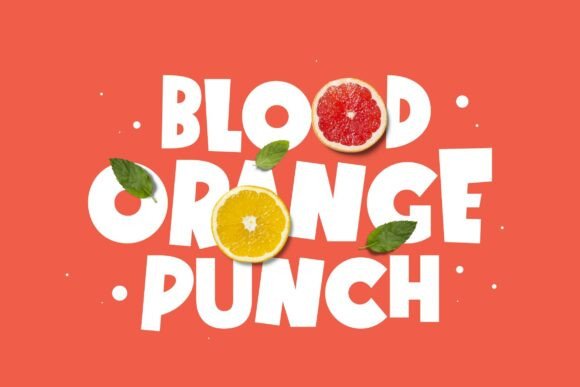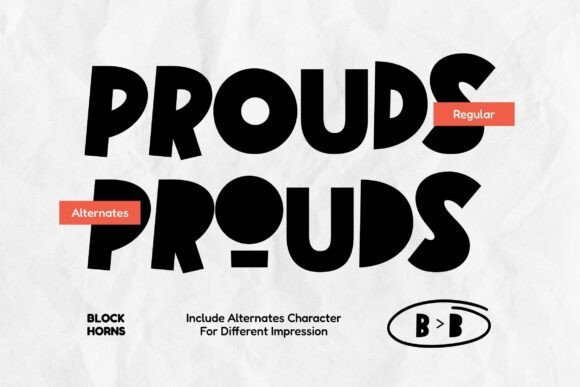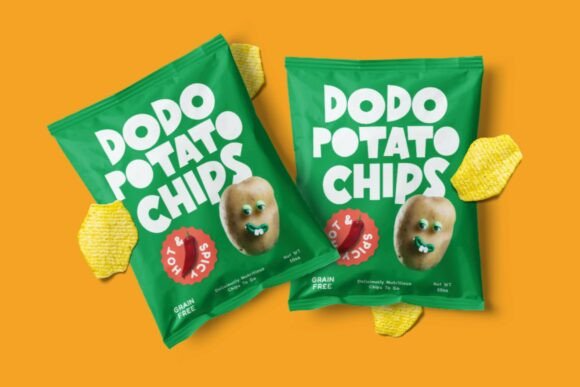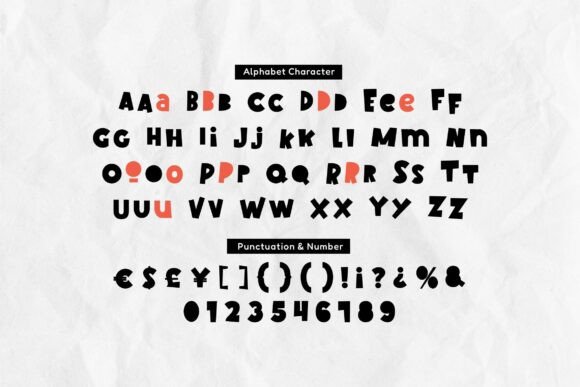
Introduction to Block Horns Font
Remember that moment when you’re brainstorming ideas for a new design project, and you’re stuck on finding the perfect font to capture the audience’s attention? You scroll through countless options, but none seem to convey the playful vibe you’re aiming for. Well, let me introduce you to a game-changer – the Block Horns Font.
This chunky display font is a design treasure trove, featuring thick, geometric letterforms that exude a cheerful energy. With its unique blend of blocky forms and rounded edges, the Block Horns Font adds a handcrafted feel to any creative project. Whether you’re working on a branding project, designing merchandise, or creating a children’s book, this high-quality font is sure to elevate your design to the next level.
Key Features of Block Horns Font
- Unique block horn design element suitable for use as a logo or icon
Honest Review: Block Horns Font
As a designer, I’m always on the lookout for high-quality design resources to enhance my creative projects. I recently stumbled upon the Block Horns Font, and I’m excited to share my honest review.
- The font’s unique design makes it perfect for adding a touch of personality to creative projects.
- The Block Horns Font may not be suitable for formal or professional projects, as its playful design may come across as unprofessional.
Overall, I’m impressed with the Block Horns Font, and I would definitely recommend it to designers who are looking for a fun and creative way to add some personality to their projects. However, it’s essential to consider the limitations and use it in the right context.
Block Horns Font
Tips for Getting the Most Out of Block Horns Font
To get the most out of Block Horns Font, try the following:
- Experiment with different font sizes and colors to create a unique look.
- Combine Block Horns Font with other design elements to create a cohesive design.
- Use the font in creative ways, such as as a background texture or a decorative element.
Block Horns Font is commonly used in:
- Social media graphics and promotions.
- Presentations and reports.
- Marketing materials and advertisements.
- Graphic design projects and illustrations.